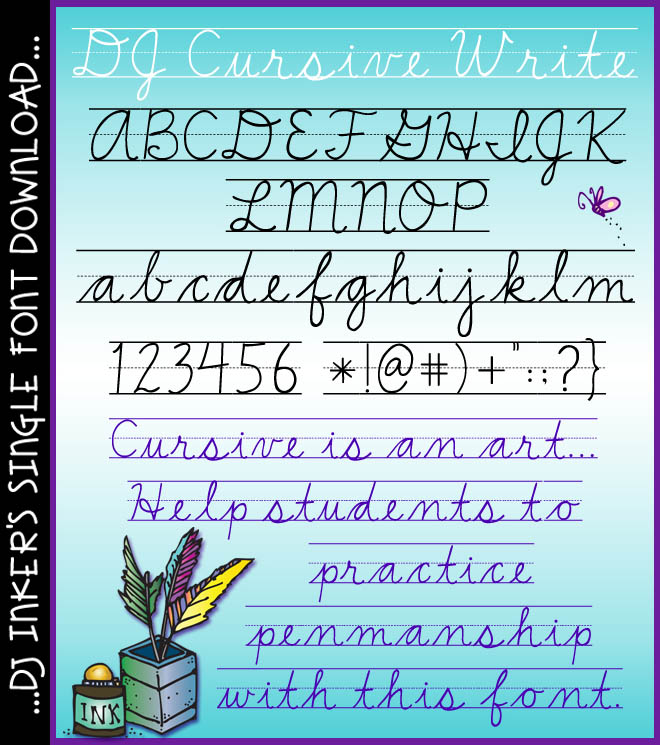
DJ Cursive Write Font Download
Help students learn & practice good penmanship with our 'DJ Cursive Write' font download! Type-up nice, neat cursive worksheets, visual aids, reference tools & more. Letters type on a built-in template to make creating super easy! Perfect for schools and home practice.  (djdf54)